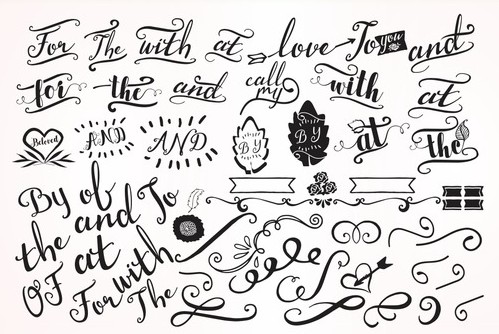
Wcheverly Script Font. It’s a present-day typeface. Easy, sophisticated script wcheverly drawn and redrawn and the relationship of letters refined to make a look handwriting efficaciously.
Wcheverly script with fashion gentle, emotional, lyrics, even passionate calligraphic typeface konteporel to create limitless creativity. His appearance was inspired by means of the appearance of writing with a steel pen I wrote myself irregularly however memorable experience.
Wcheverly Script Font
A device that could push and pull, and which produces best impolite while pressure upon it’s miles numerous. Clean, sophisticated script wcheverly drawn and redrawn and the relationship of letters delicate to make a look handwriting efficaciously.